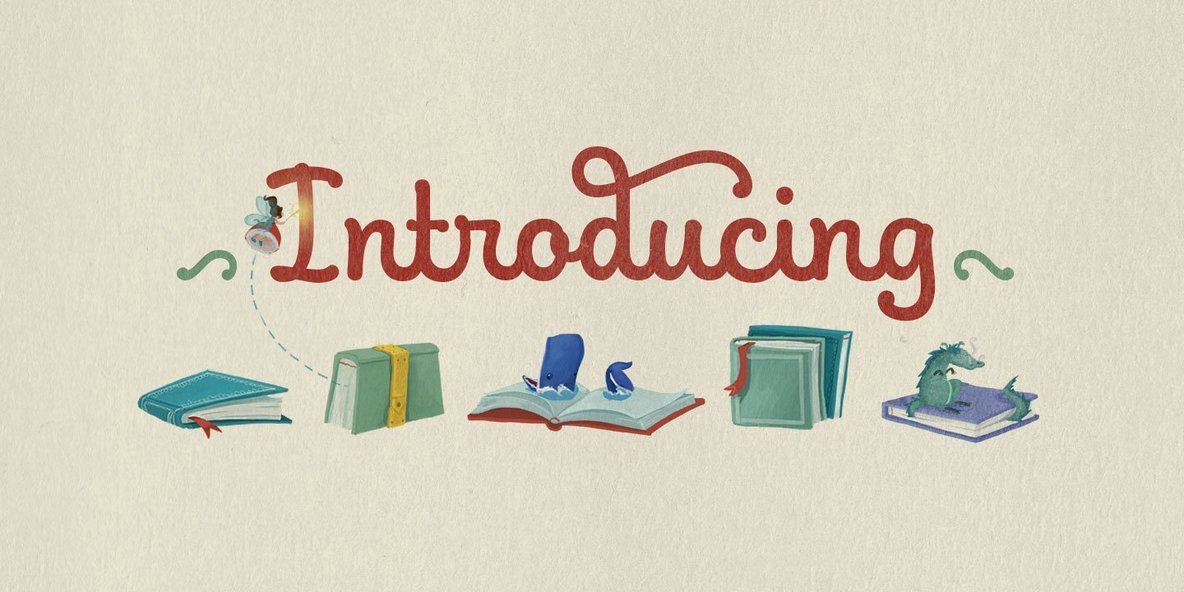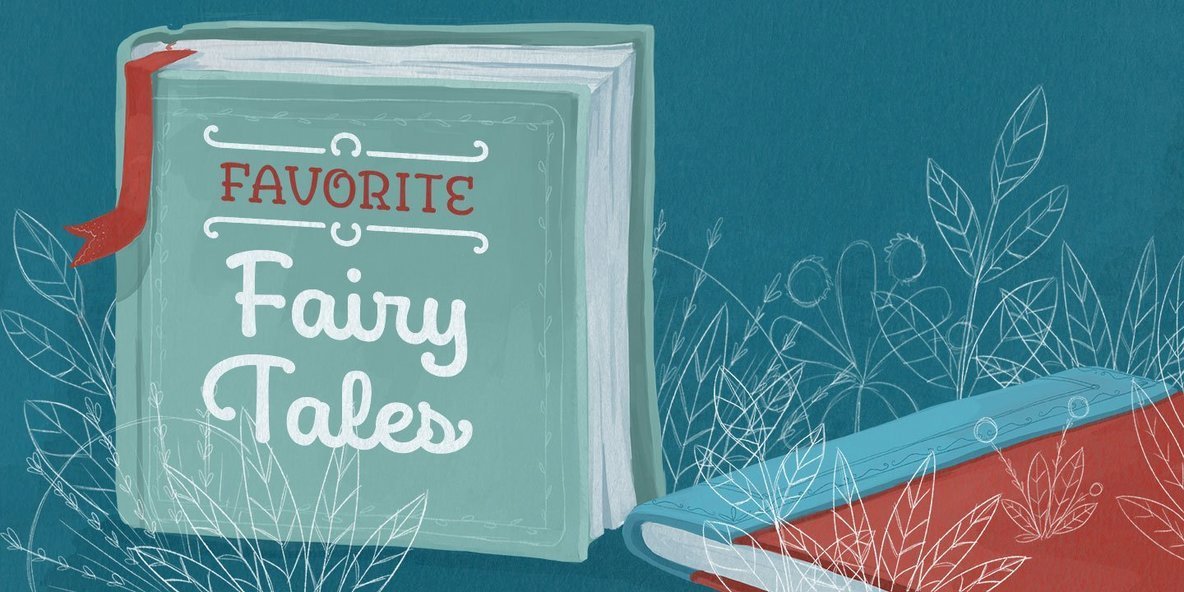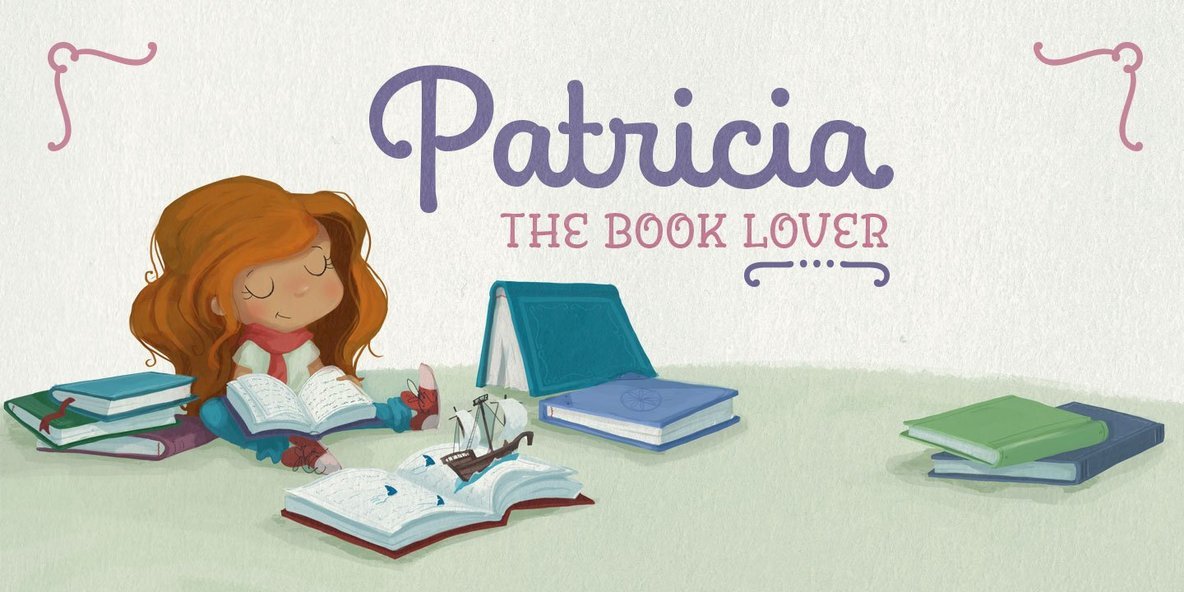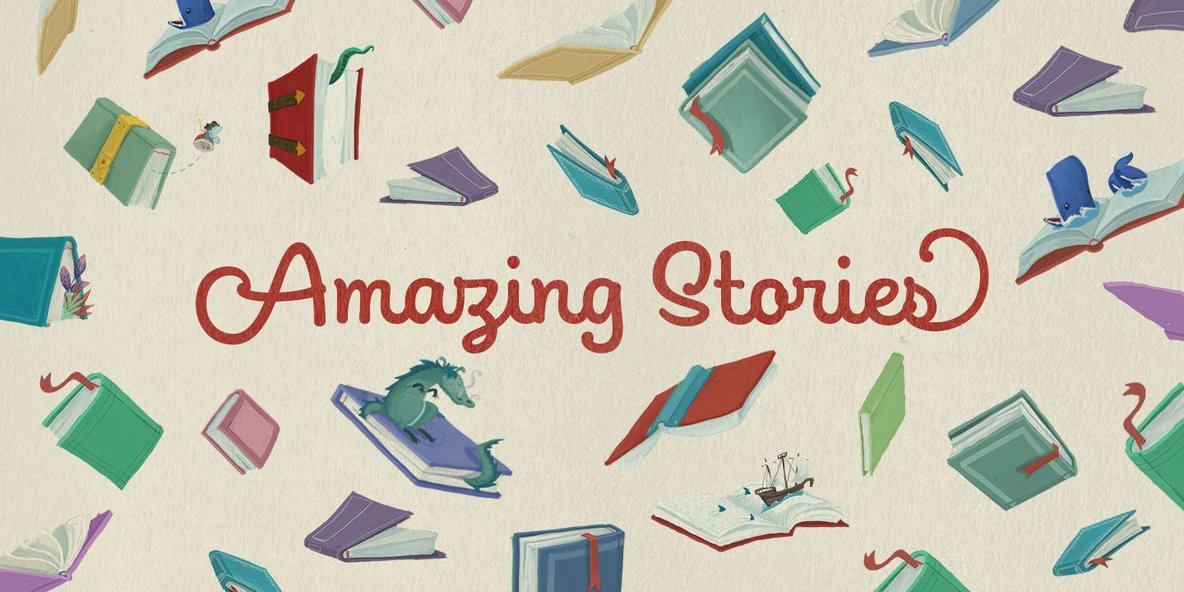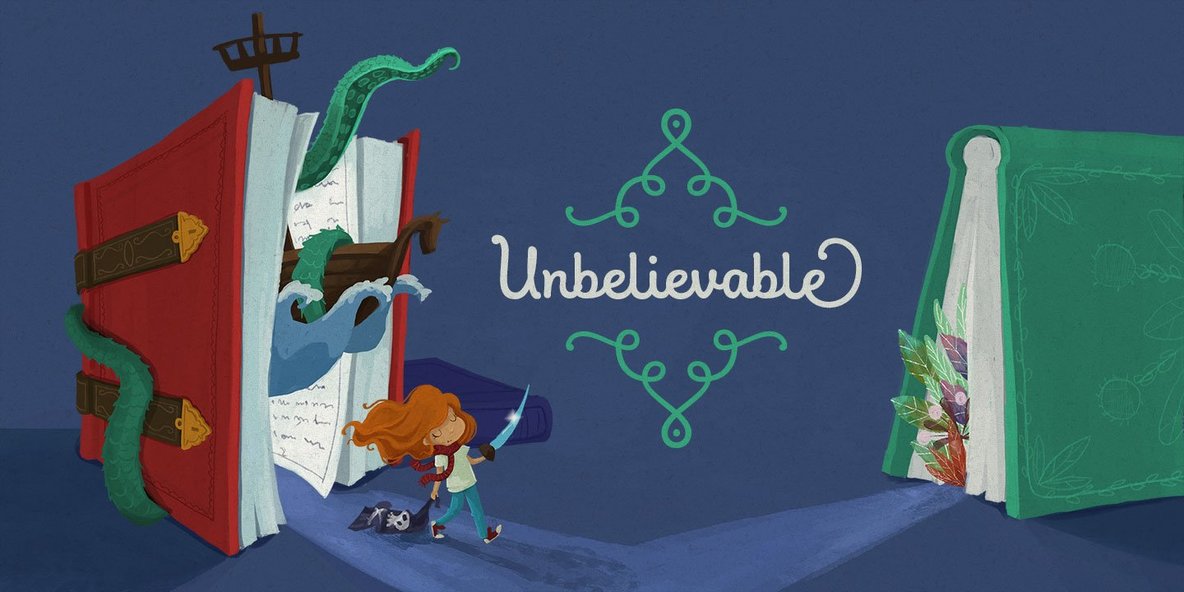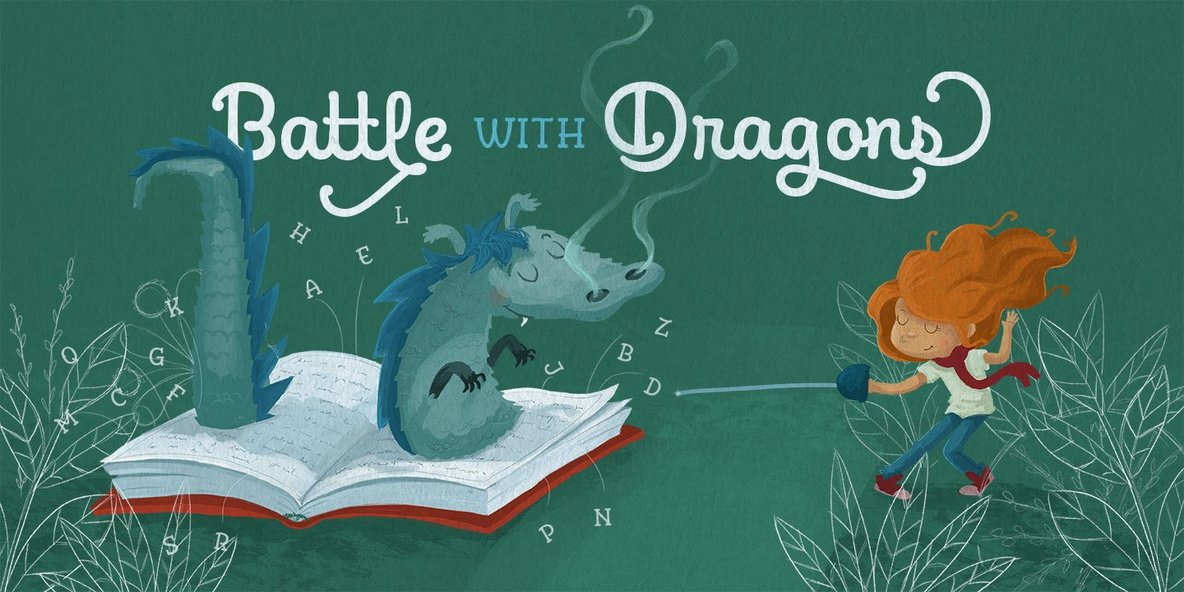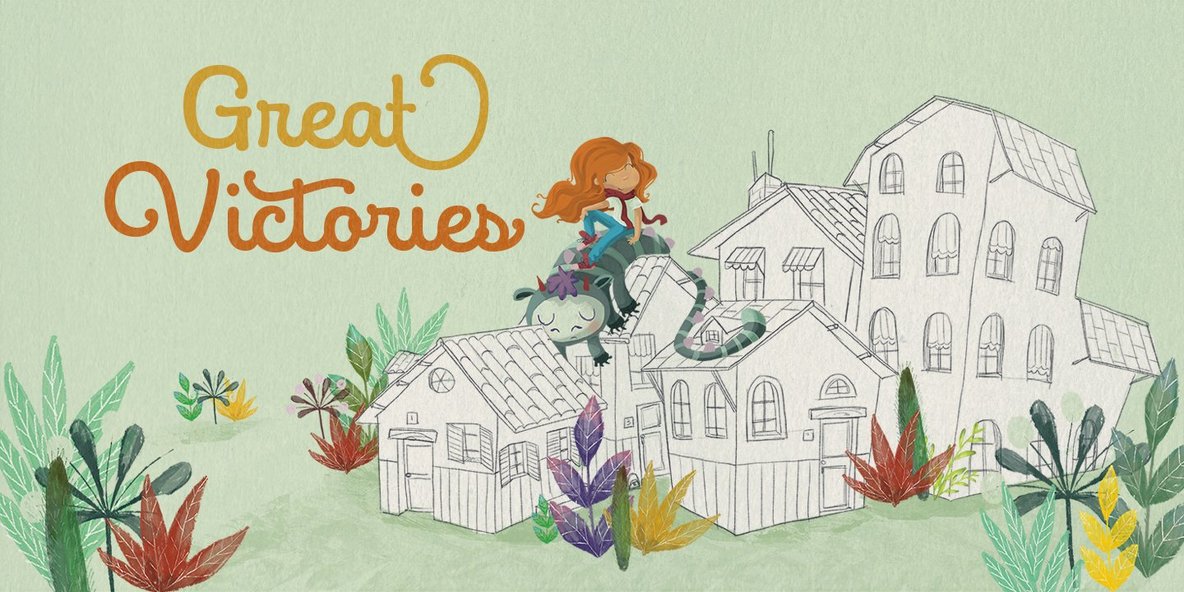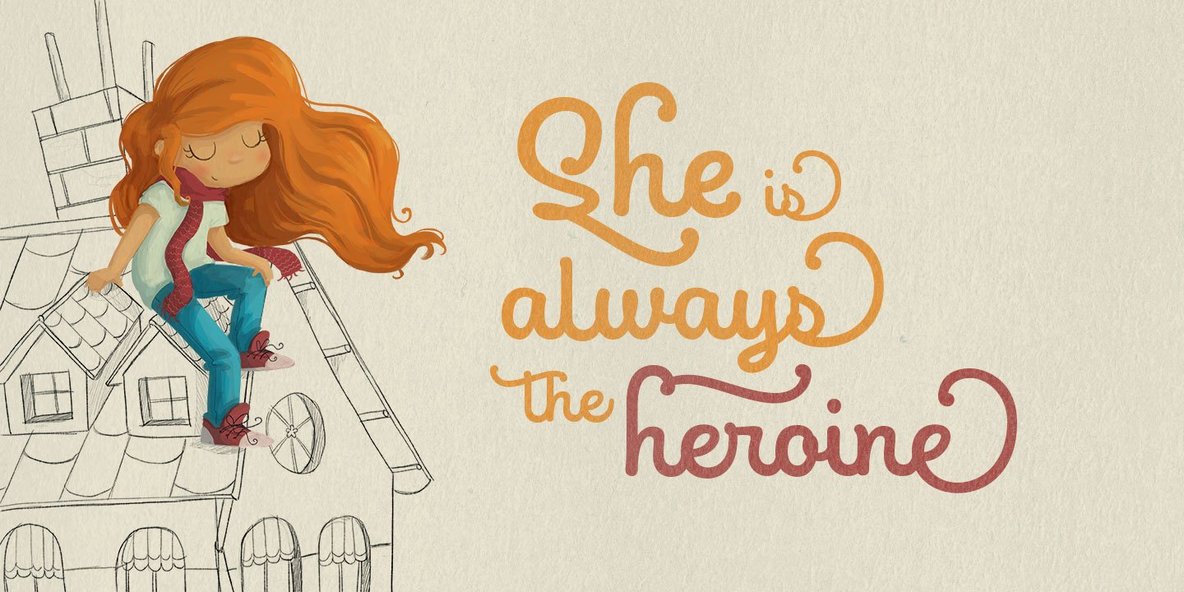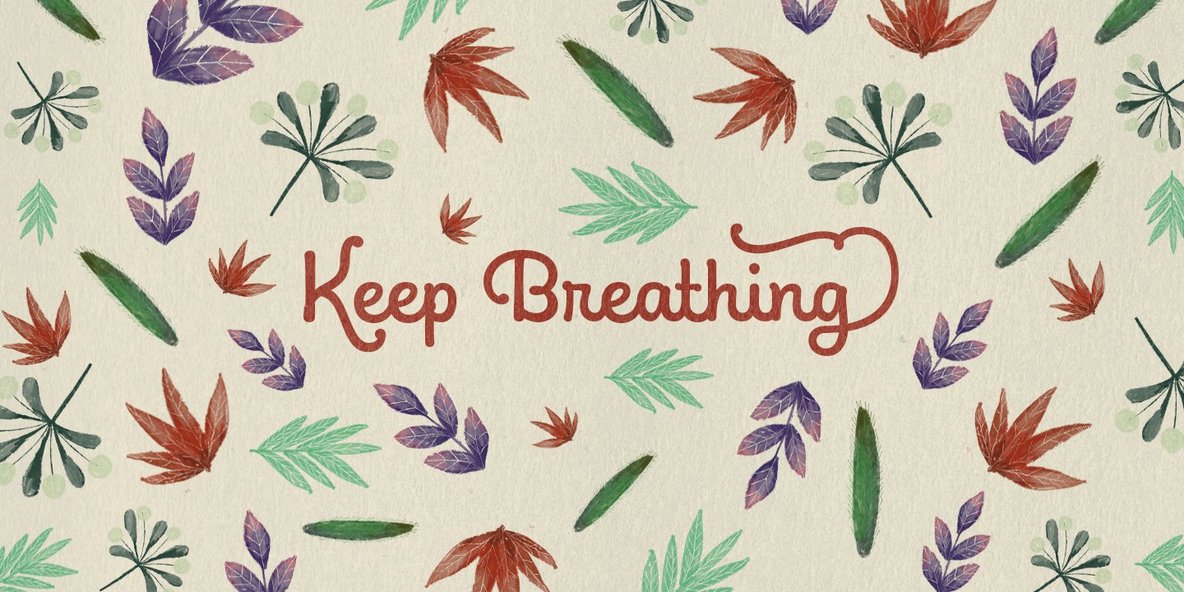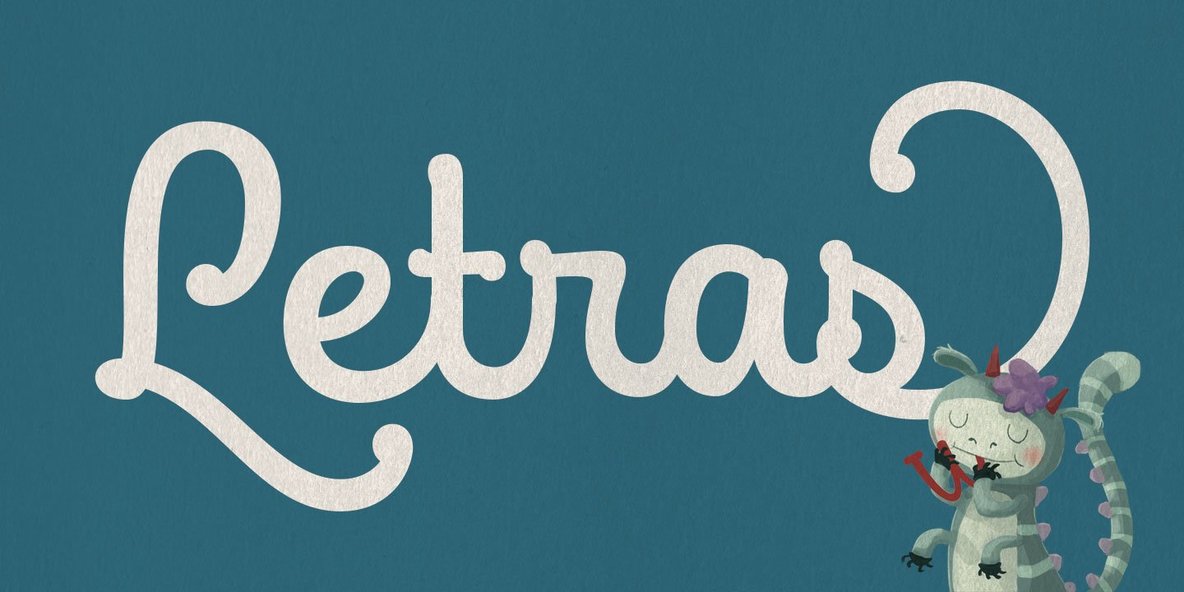
Wink Font
Wink Caps
Wink Script
Wink Script Ornaments
Wink has been created as the result of exhaustive research, trial and development. It is an OpenType set of fonts which appears in a friendly and fun way, with a new twist on what Joluvian has previously created.
Full of personality, with a brave and strong creative line, it is intended to reflect authenticity when being used in all types of media and styles. The ornaments offered in this font work as a graphic resource that expand all the possibilities for Wink users.
Although Wink is inspired by traditional calligraphic flourishes, its modern twist makes it elegant and simple at the same time. It’s not completely a brush type but it has been created with the same calligraphy base Joluvian usually works with.
Wink also has a caps version with the same style of the script. Both versions could work perfectly, individually or together.
As usual, the type has been developed with Ale Paul for Sudtipos, and the collaboration of Macus Romero has been essential to illustrate the style that Wink represents.